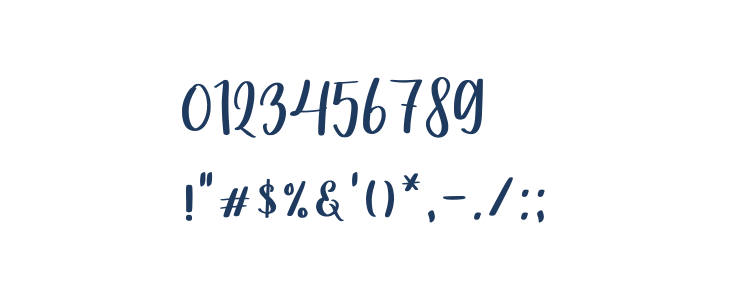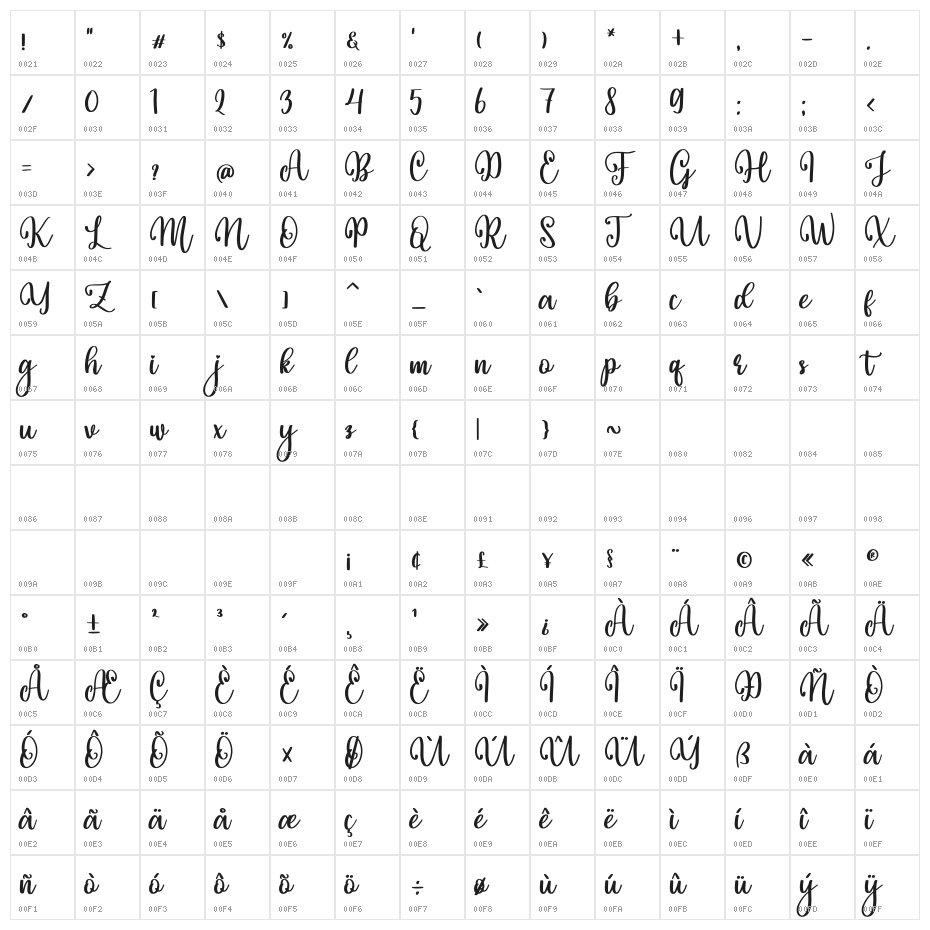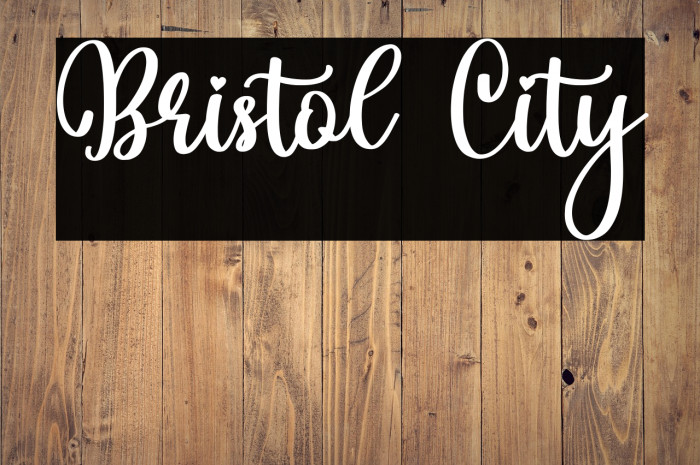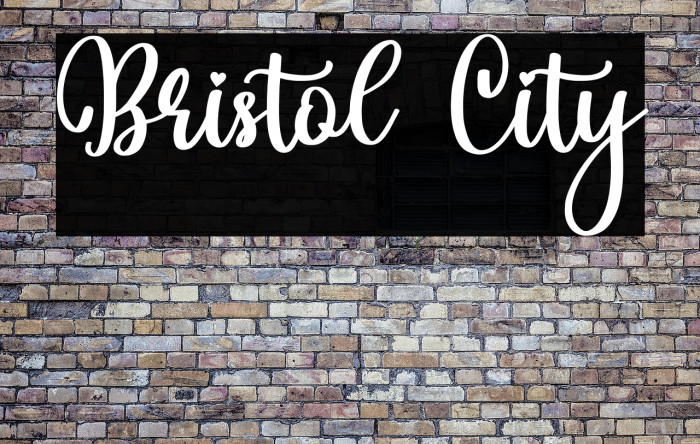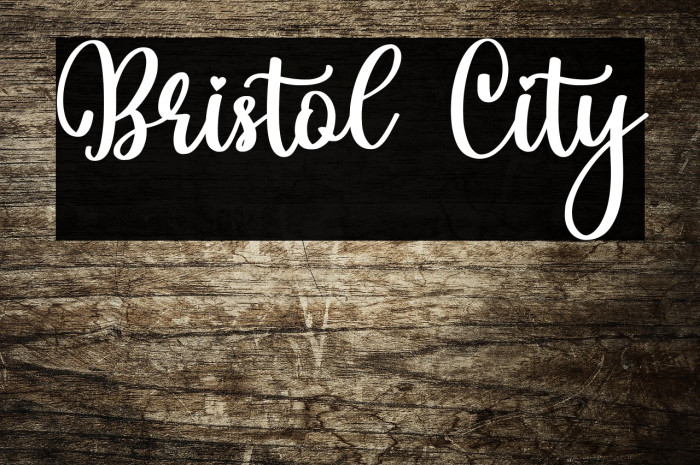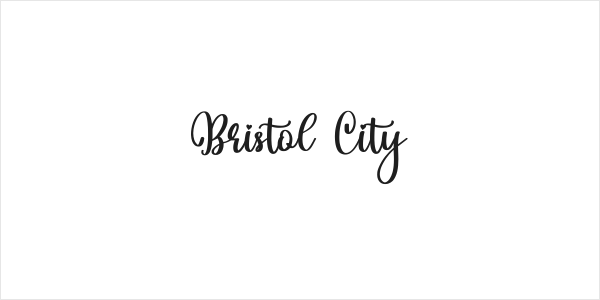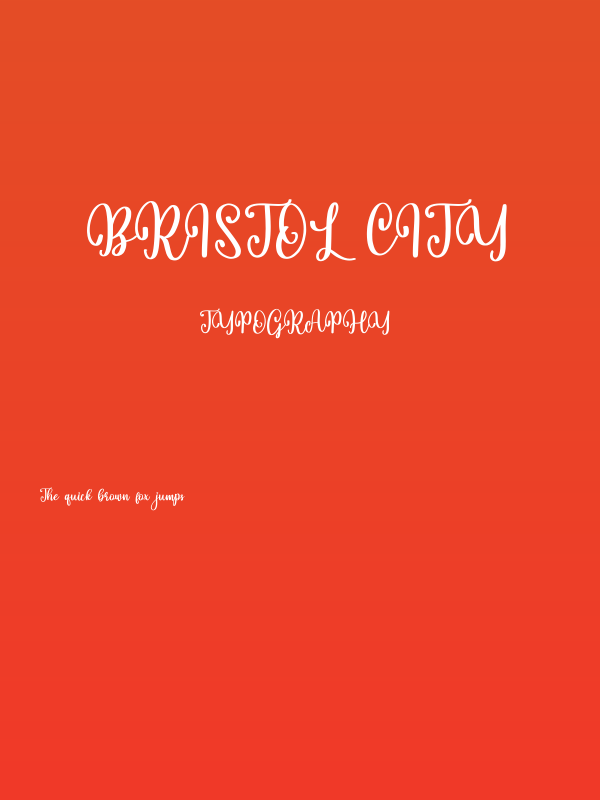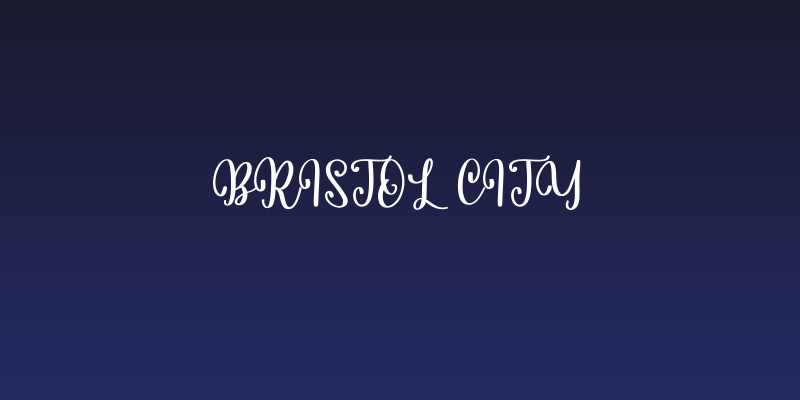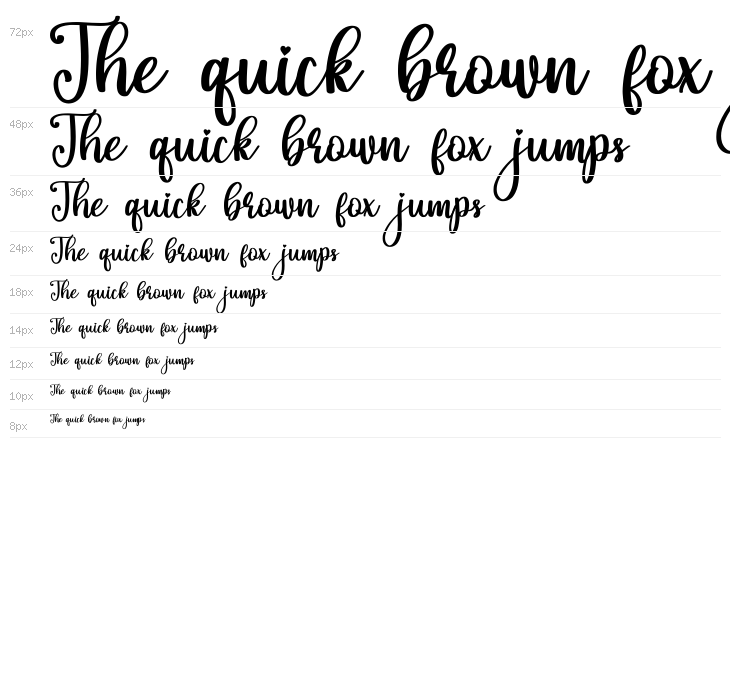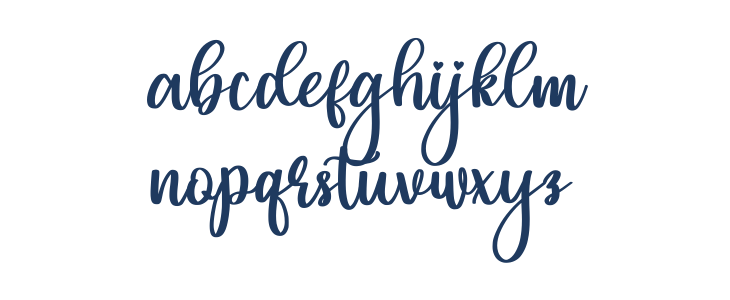
Bristol City Font
Bristol City Description
This font features a playful and elegant script style with flowing, interconnected letters that exude a sense of charm and sophistication. The uppercase letters are distinct with a slight flourish, while the lowercase letters maintain a consistent, smooth flow that enhances readability. The numerals are bold and clear, matching the overall aesthetic of the font. Special characters are well-integrated, maintaining the whimsical yet refined appearance. This font is perfect for projects that require a touch of elegance and personality, such as invitations, branding, or decorative elements.